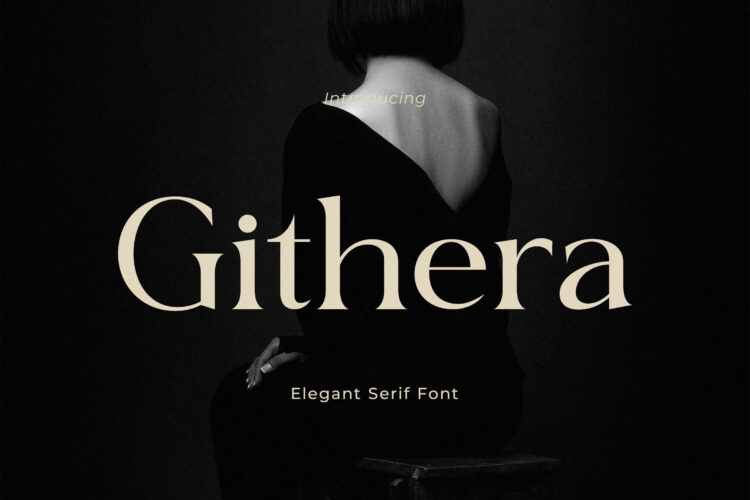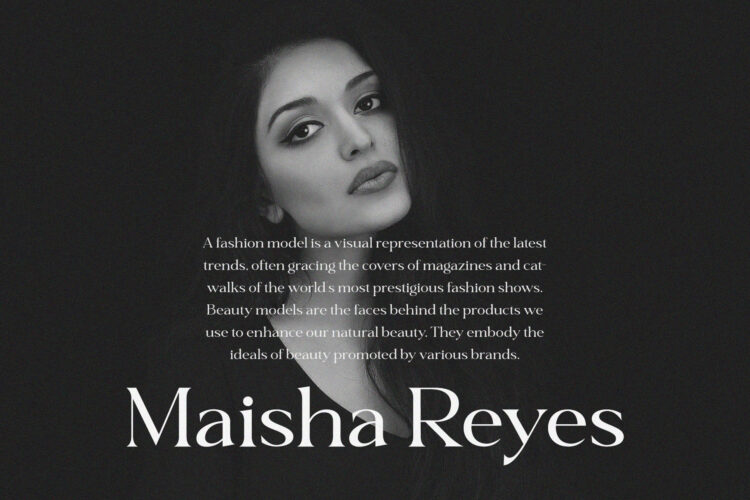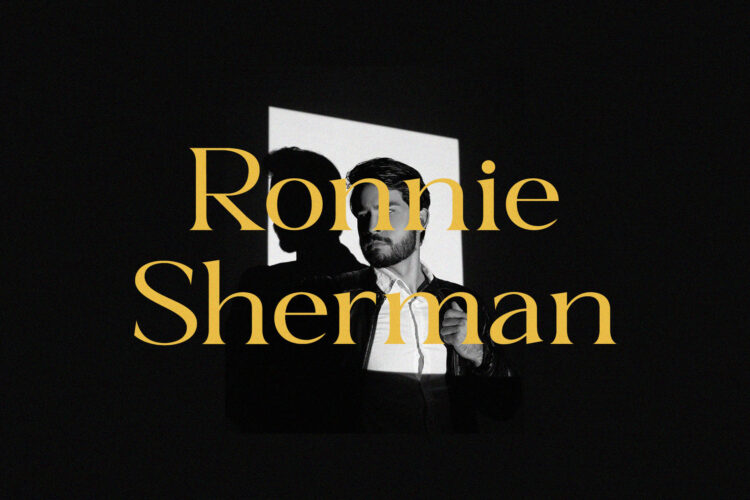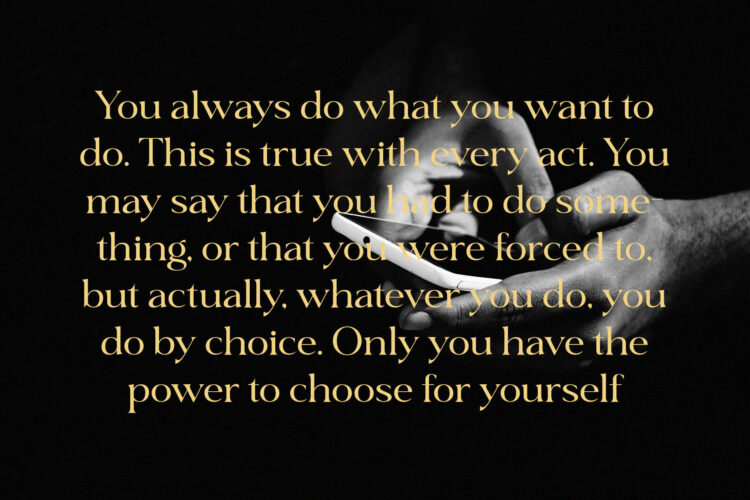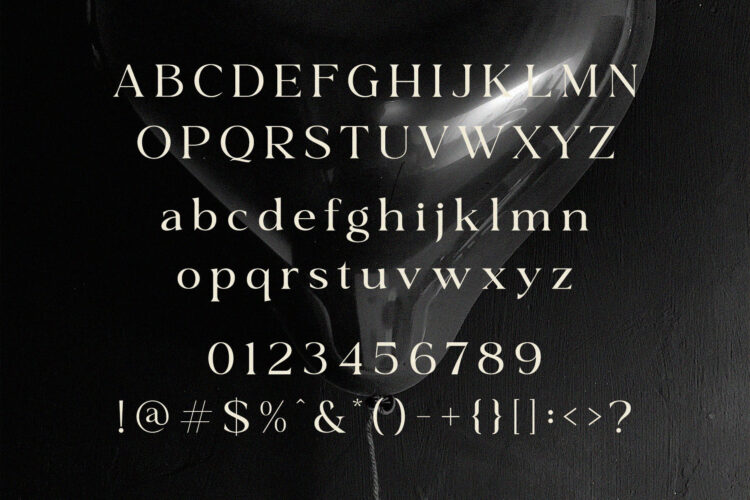
Introducing Githera – Elegant Serif Font.
Githera is a modern and simple font, best used as a display for headings, logos, branding, magazines, product packaging and invitations.